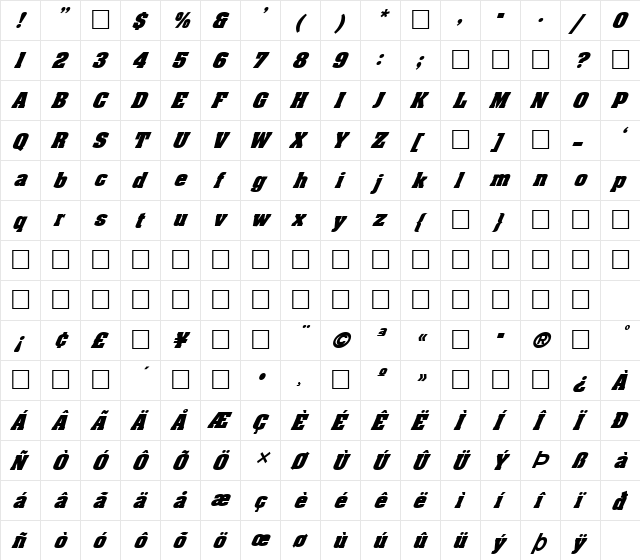
FZ ROMAN 3 ITALIC Light
Design Context for FZ ROMAN 3 ITALIC Typeface
FZ ROMAN 3 ITALIC takes a measured approach to typography — its balanced proportions and neutral character make it a reliable workhorse for both digital and print work. The slanted form adds forward momentum and visual energy. Its slender proportions lend an understated elegance to any composition.